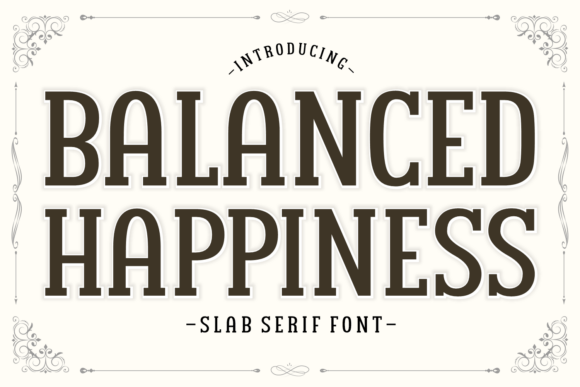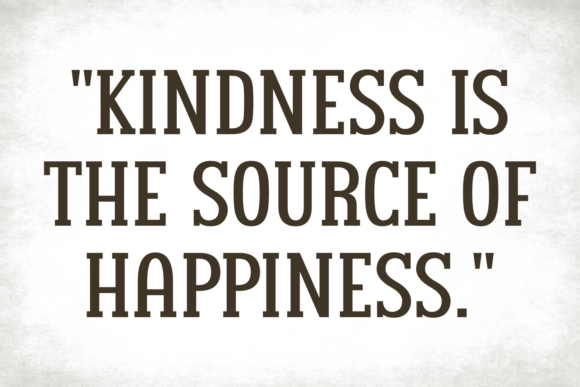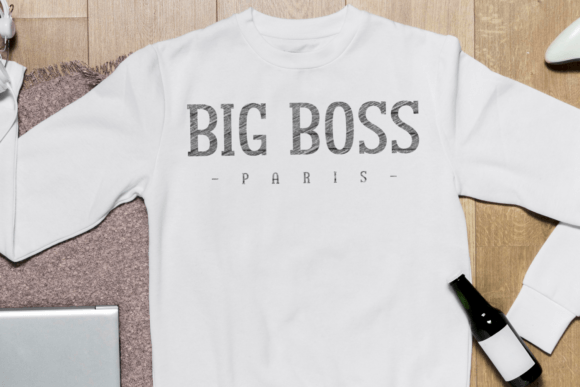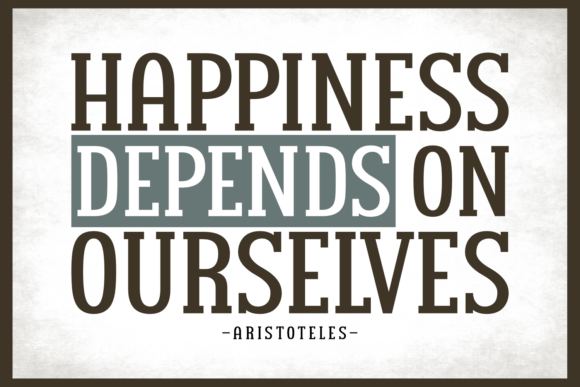
Balanced Happiness Font: A Bold & Playful Slab Serif for Headlines
About the Balanced Happiness Font
Crafted with precision, the Balanced Happiness Font is ready to bring your ideas to life. “Balanced Happiness”, is a slab serif font that embodies the perfect fusion of classic and modern design aesthetics. This trendsetting typography gem is the ideal choice for crafting a variety of designs. Its playful yet professional design makes it a versatile font, suited to everything from riveting summer designs to heartwarming greeting cards.
With Balanced Happiness, you can create striking headlines, make bold statements with movie titles, or add a touch of uniqueness to birthday announcements. Its unique charm radiates in every stroke, making it an excellent choice for inspirational quotes to stir emotion, or for branding and logo design to establish an unforgettable identity.
Balanced Happiness Font Usage Examples
Balanced Happiness Font Example